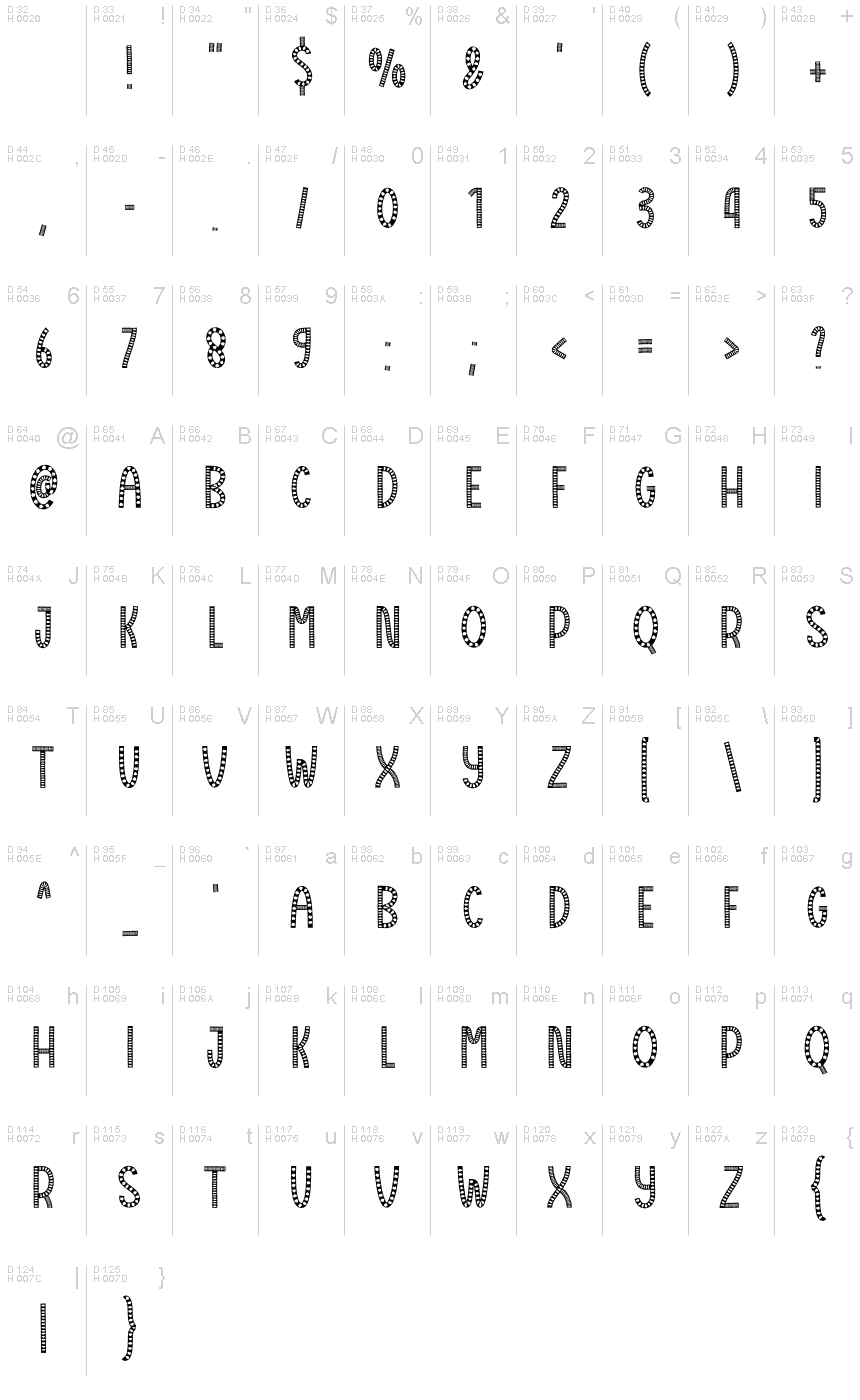
Christmas Cloud
Christmas Cloud by Scratchones brings a whimsical touch to the world of display fonts. With its decorative style and semi-light weight, this condensed typeface captures the essence of holiday cheer and cloud-like fantasy in each character. The playful curvature of the letters, coupled with soft, puffy details that resemble clusters of clouds or snowflakes, gives it an aesthetic appeal that is both charming and delightful.
Crafted to infuse your creative projects with a sense of joy and enchantment, Christmas Cloud stands out for its ability to meld comfort with festivity. Its unique design makes it ideal for seasonal greetings, festive advertising campaigns, event invitations, or any project aiming to convey warmth and merriment.
Embrace the lighthearted spirit of the holidays with Christmas Cloud—a font that not only sets a celebratory tone but also adds an airy elegance to your typographic compositions.
Crafted to infuse your creative projects with a sense of joy and enchantment, Christmas Cloud stands out for its ability to meld comfort with festivity. Its unique design makes it ideal for seasonal greetings, festive advertising campaigns, event invitations, or any project aiming to convey warmth and merriment.
Embrace the lighthearted spirit of the holidays with Christmas Cloud—a font that not only sets a celebratory tone but also adds an airy elegance to your typographic compositions.